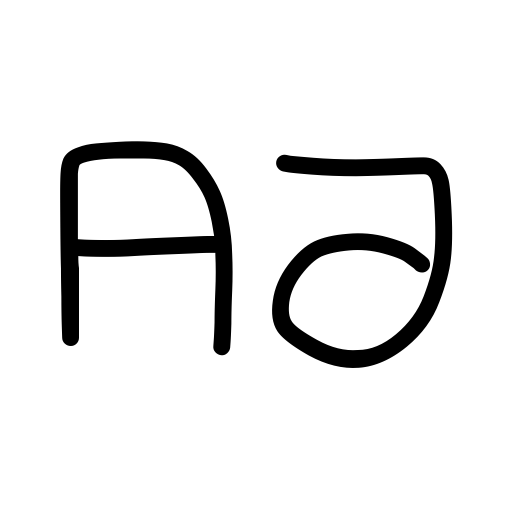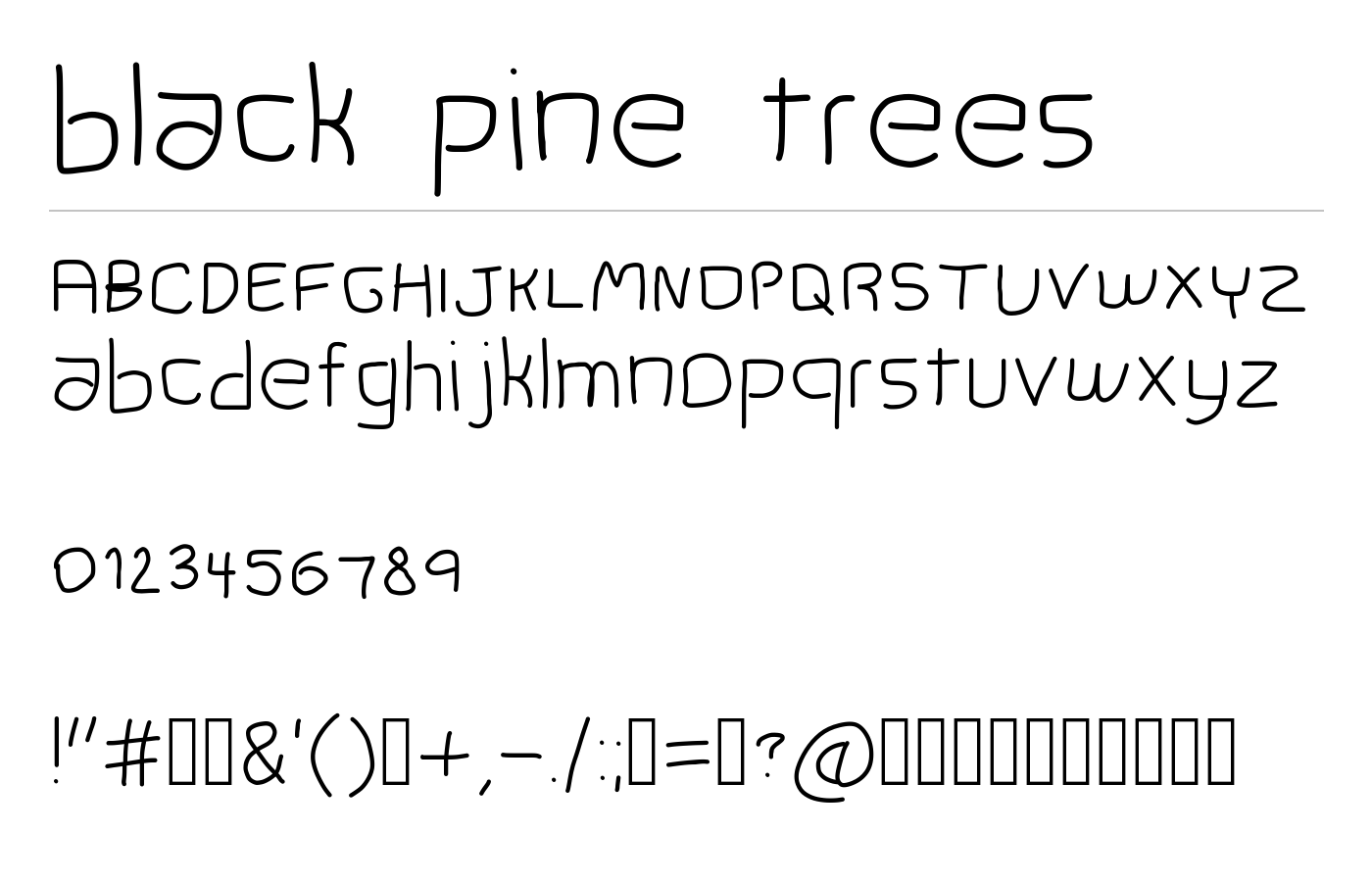
Black Pine Trees is a quirky, hand-drawn sans serif font with a playful and casual feel. Its uneven stroke widths and whimsical letter shapes give it a friendly, approachable personality, making it ideal for creative projects, children's materials, and informal branding. This font works well for headlines and display text where a lighthearted, unique touch is desired.
black pine trees Font
About black pine trees Font